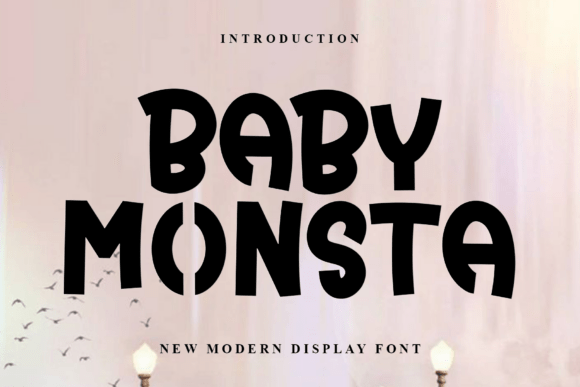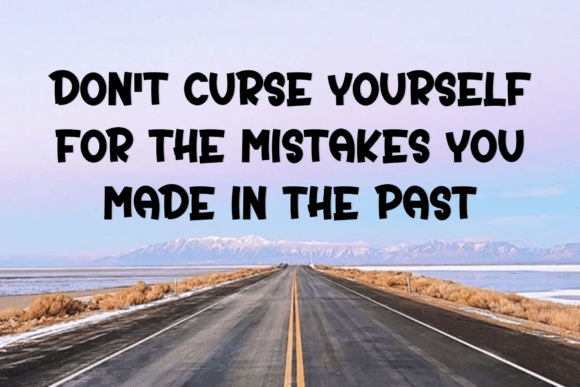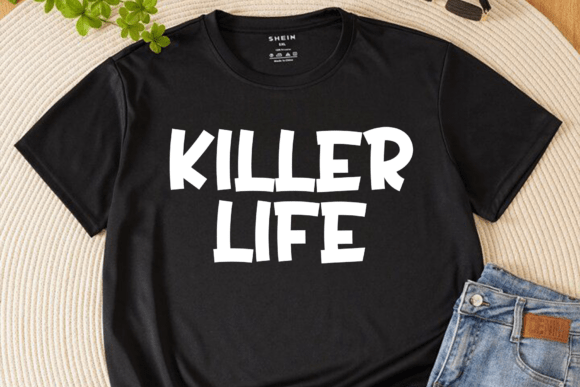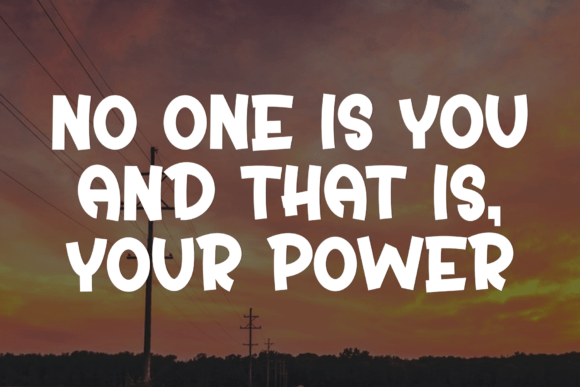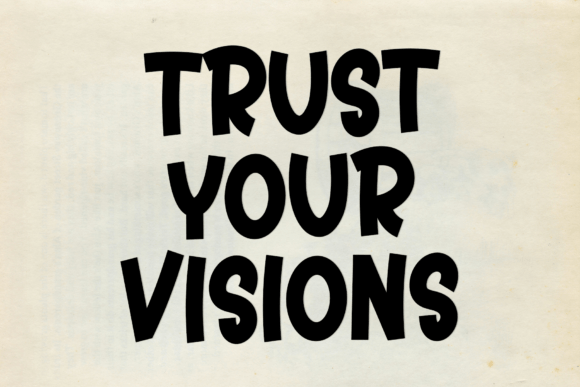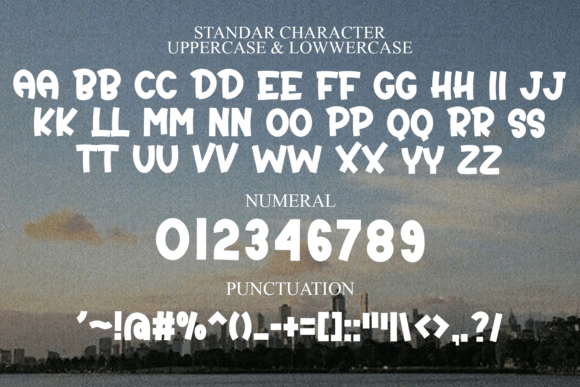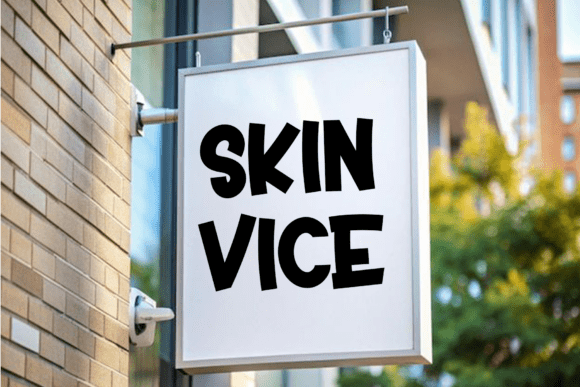
The Birth of a New Design Era: Introducing Baby Monsta Font
Have you ever sat down with a blank page, a spark of creativity, and a blank slate, only to be met with the daunting task of choosing the perfect font to bring your vision to life? For many designers, this is a familiar and thrilling experience. But what if you could find a font that not only captures your imagination but also adds a touch of magic to your designs? Enter Baby Monsta Font, a beautifully crafted font that promises to revolutionize the way you approach design.
This enchanting font is more than just a pretty face – it’s a versatile tool that can be used for a wide range of design projects, from crafts and art to digital applications. With its unique strokes and character, Baby Monsta Font is the perfect addition to any designer’s toolkit, offering endless possibilities for creativity and self-expression.
Baby Monsta Font Key Features
- Unique Characteristics: Baby Monsta Font is known for its playful and whimsical design, featuring a mix of rounded and pointed edges, making it perfect for children’s books, educational materials, and other creative projects.
Baby Monsta Font Review
As a designer, I’m always on the lookout for unique and playful fonts to add some personality to my projects. The Baby Monsta Font is certainly one of a kind, and here’s my honest review.
- ✨ The font’s quirky and fun design is perfect for projects that need a lighthearted touch.
- ✨ The font is highly customizable, allowing for a wide range of color and size options.
- ✨ The font is well-suited for digital projects, such as social media graphics, animations, and video titles.
- ⚠️ The font may not be suitable for projects that require a more formal or professional tone.
- ⚠️ The font’s irregular shape and lines may cause readability issues in certain contexts.
Overall, I think the Baby Monsta Font is a great choice for designers who want to add some whimsy and personality to their projects. While it may have some limitations, its unique design and customization options make it a valuable addition to any designer’s toolkit.
The Baby Monsta Font is ideal for:
- Children’s book covers and illustrations.
- Party invitations and decorations.
- Graphic design projects requiring a playful, whimsical feel.